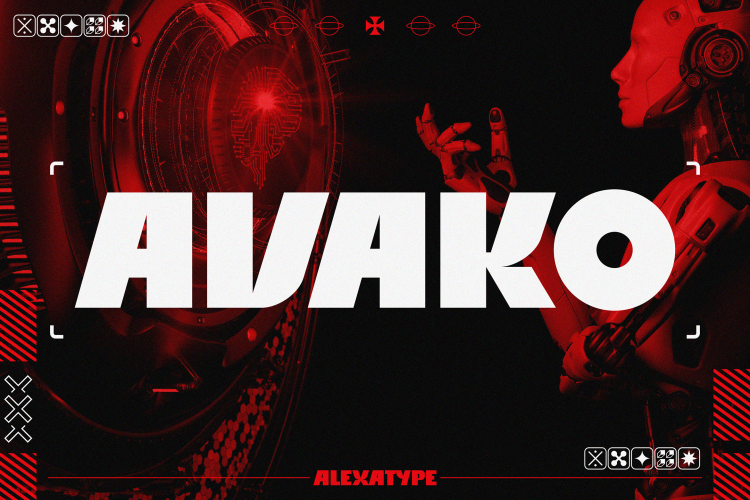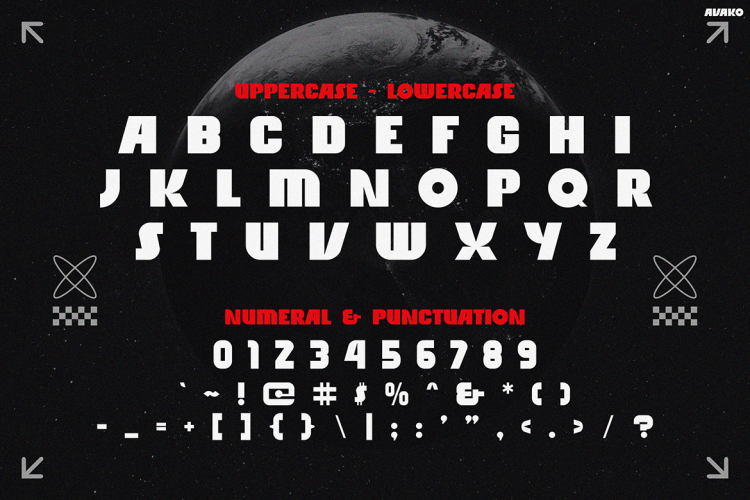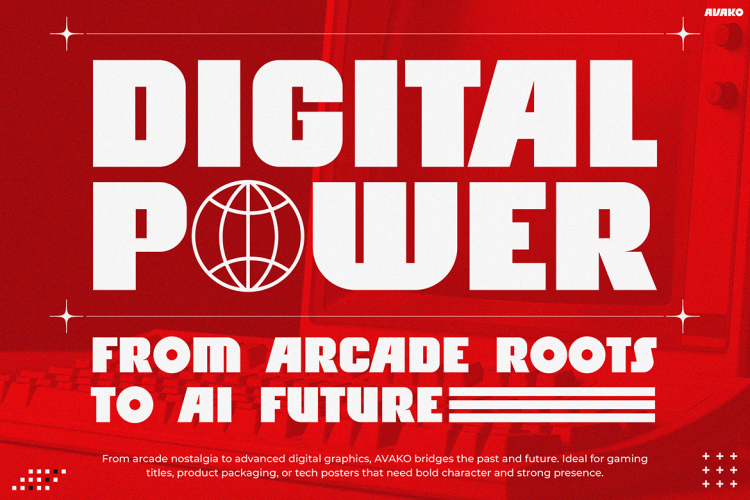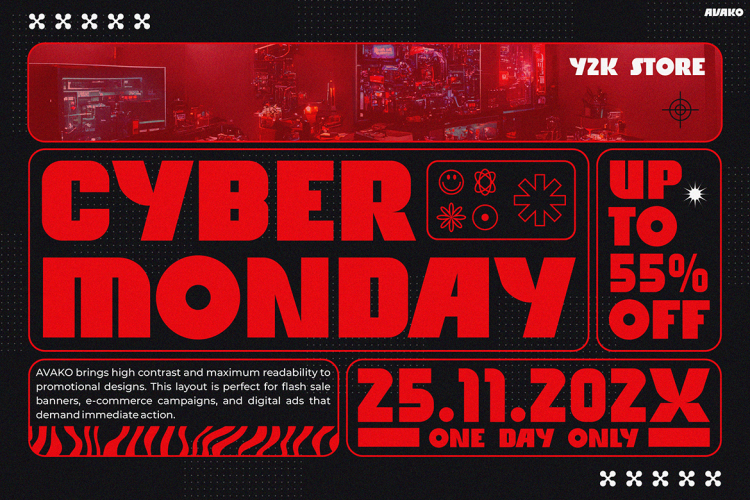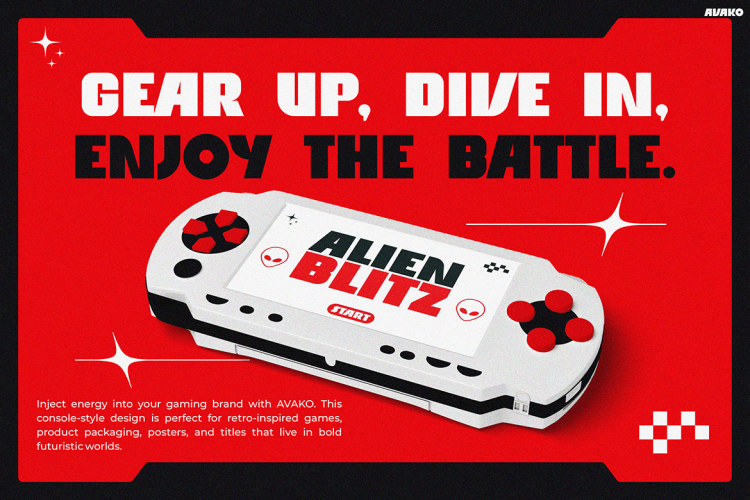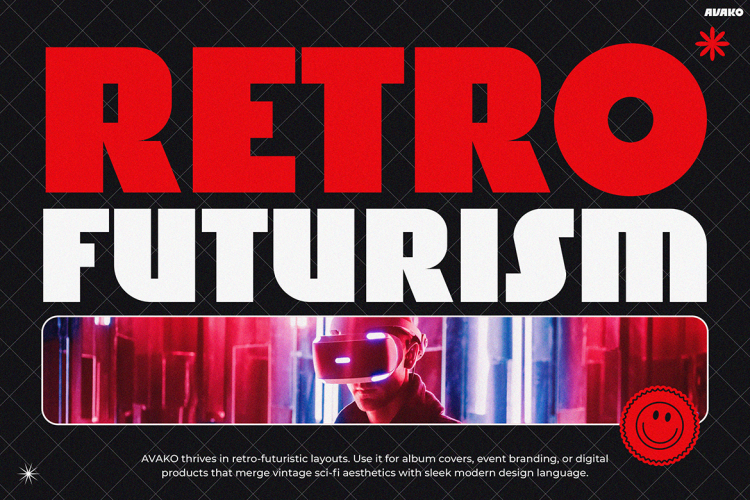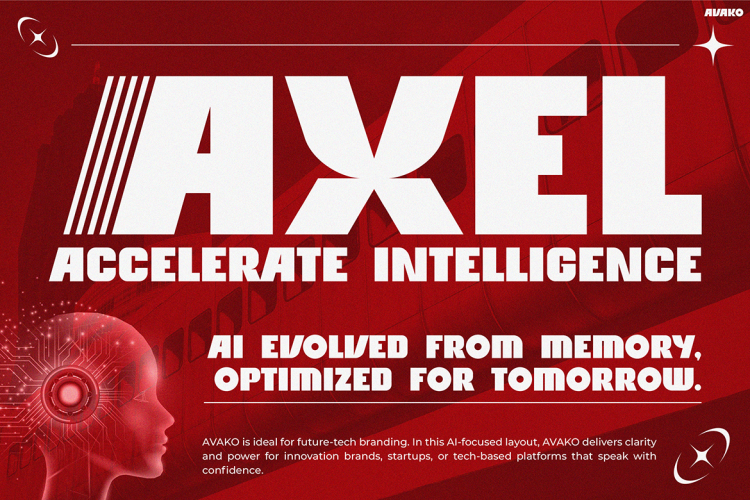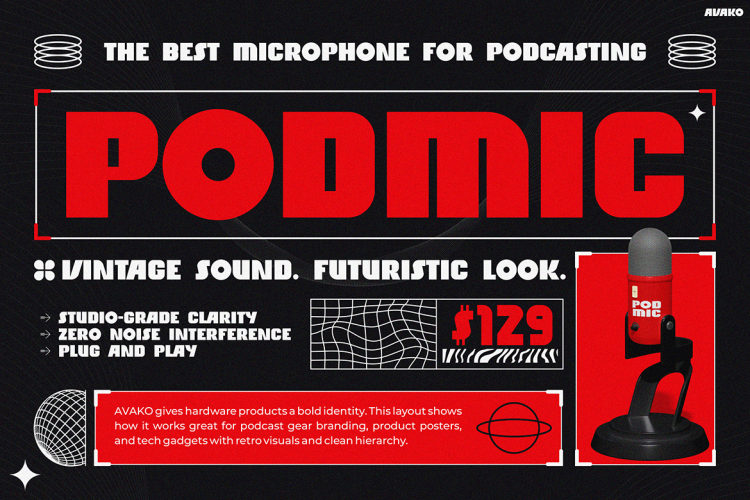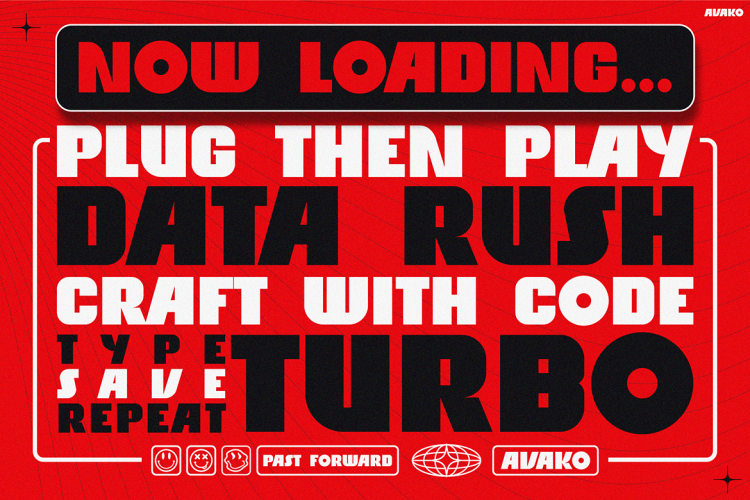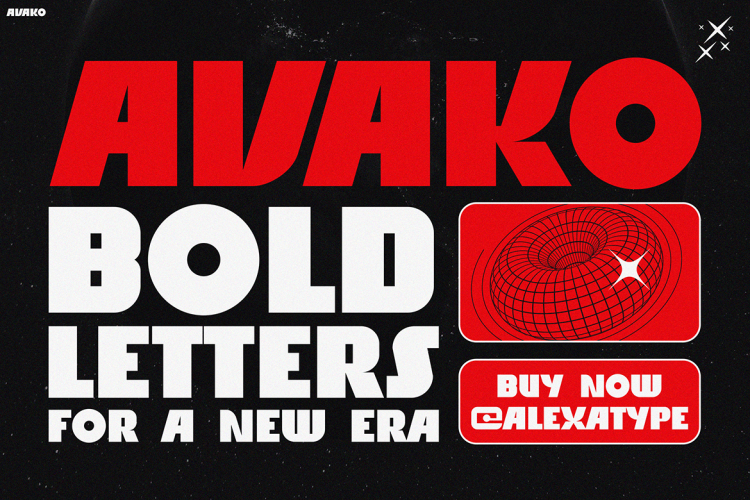
Gaming Font AVAKO is a bold and electrifying typeface that seamlessly blends retro charm with futuristic aesthetics. From the very first glance, AVAKO captures attention through its thick, geometric letterforms and vintage sci-fi vibe. Not only does it recall the visual flair of classic arcade games, but it also brings a sleek, digital edge that feels right at home in the modern tech landscape. Consequently, it creates a unique aesthetic that stands out across posters, packaging, and digital branding. Thanks to its clean construction and high-impact style, this font enhances readability while delivering strong visual hierarchy. In short, AVAKO is not just a fontโitโs a design statement.
Gaming Font AVAKO For
To begin with, AVAKO thrives in any visual project that demands presence, personality, and punch. Designed with purpose, every glyph feels sturdy and impactful, making it ideal for layered layouts or dynamic titles. Furthermore, its retro-futuristic essence ensures it works equally well across both nostalgic and forward-looking designs. For example, you can see how the font powers the โPODMICโ layout with clarity, then shifts effortlessly into the high-tech vibe of โRETRO FUTURISMโ and โDIGITAL POWER.โ Thus, it adapts beautifully to different creative environments.
Because of its versatility, AVAKO is well-suited for:
Graphic designers, especially those working on tech or pop culture branding
Game developers, aiming to fuse retro visuals with modern playability
Content creators and podcasters, who need standout title treatments
Tech startups, looking to craft a memorable, future-ready identity
Event or poster designers, who want big impact with clean readability
Whether you’re crafting album covers, UI graphics, or promo visuals, AVAKO simplifies your workflow while elevating your design.
In conclusion, if you’re searching for a font that brings both bold character and seamless versatility, Gaming Font AVAKO is your ideal pick. Itโs more than a typefaceโitโs a tool to express vision, attitude, and creativity. Donโt miss out on a design asset that effortlessly bridges retro roots and futuristic flair. Try AVAKO today and make your visuals unforgettable.